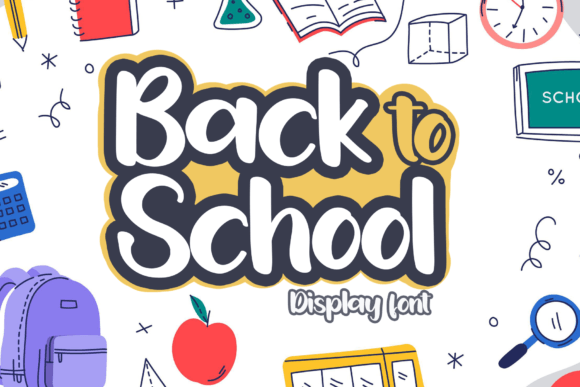
The Ultimate Font for a Groovy Back to School Vibe
As a designer, there’s nothing quite like the rush of excitement that comes with a new creative project. You’re brainstorming ideas, sketching out concepts, and searching for the perfect font to bring your vision to life. And then, it hits you – the perfect font that will make your design stand out from the rest.
Meet the Back to School Font, a charming retro typeface that’s perfectly suited for all your creative needs. Whether you’re designing t-shirts, tote bags, or wedding invitations, this font is sure to add a touch of nostalgia and whimsy to your projects. With its groovy vibe and versatility, the Back to School Font is a valuable addition to any designer’s toolkit, and we can’t wait to explore its possibilities with you.
Key Features of “Back to School Font”
- Font Family: A custom-designed sans-serif font, specifically created for educational purposes.
- Unique Characteristics: The font features a playful, yet professional design, with subtle rounded edges and a friendly feel, perfect for educational institutions and related branding.
- Character Set: Includes a comprehensive set of characters, including Latin, Cyrillic, and Greek alphabets, as well as punctuation and symbols, making it a versatile font for international use.
Back to School Font Review
Overall, I think “Back to School Font” has some fun and playful elements that could work well in educational or summer-themed projects. ✨ The font’s casual, handwritten feel is reminiscent of note-taking or doodles, which could add a nice touch to a design.
- Playful and casual feel that’s perfect for summer or educational projects
- Easy to read, even in smaller font sizes
- Good for titles or headings that need a bit of whimsy
However, there are some limitations to keep in mind. ⚠️ The font can feel a bit inconsistent, with some letters connecting or overlapping in unexpected ways. This could make it tricky to use in situations where precision is key.
- Can be inconsistent, with letters connecting or overlapping
- May not be suitable for formal or professional projects
- Could be challenging to use in situations that require precise typography
Overall, I’d say “Back to School Font” is a fun, lighthearted choice for projects that need a bit of personality. Just be aware of its limitations and use it thoughtfully.
The “Back to School Font” is commonly used in:
- School and educational projects.
- Summer camp and youth program materials.
- Back to school-themed decorations and party invitations.